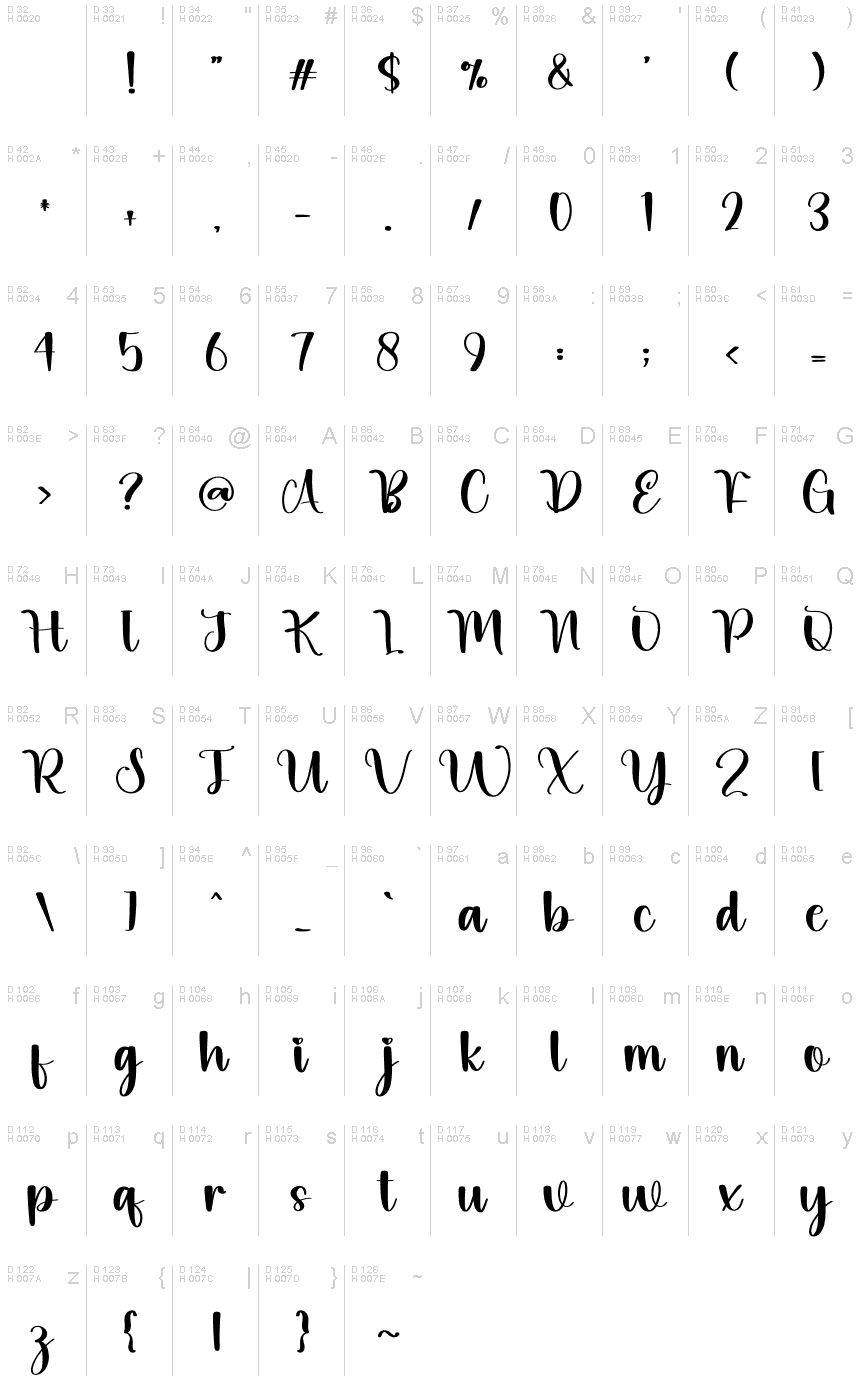
Pumkin
Pumkin, a creation of Inermedia Studio, stands out with its brush-style strokes and semi-bold weight, offering an aesthetic that is both fluid and impactful. The font exudes a handcrafted charm that could effortlessly bring warmth and personality to a variety of creative endeavors. Its semi-bold weight ensures legibility, making it versatile for both digital screens and print media. Perfect for branding, advertising, or editorial design, Pumkin promises to inject an artistic touch into any project it graces.
With its unique balance of casual elegance and robust presence, Pumkin is poised to be the go-to font for designers seeking to make a distinctive statement.